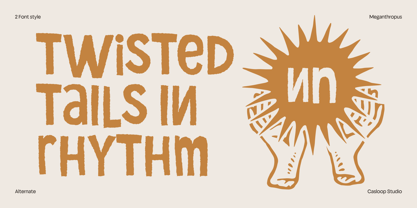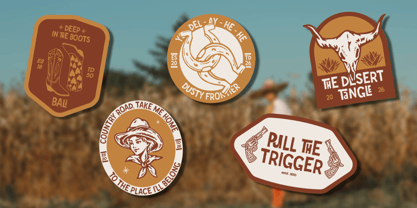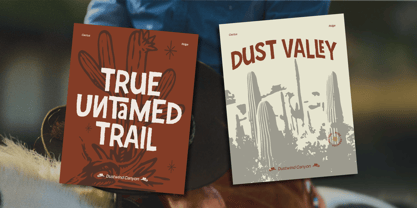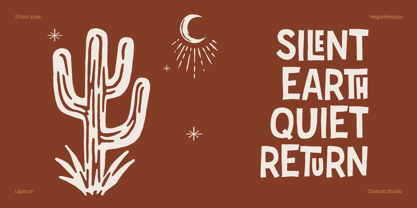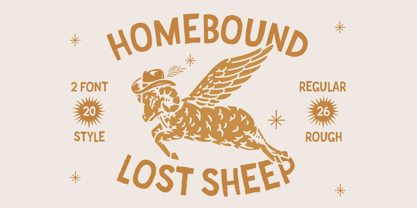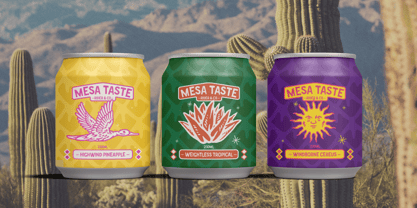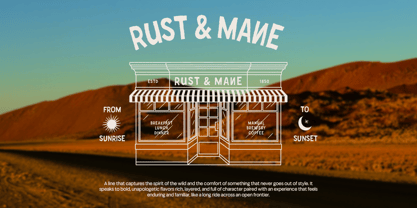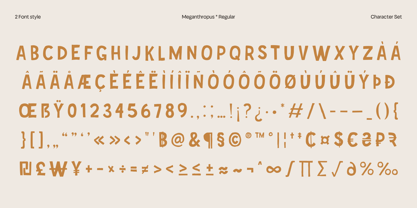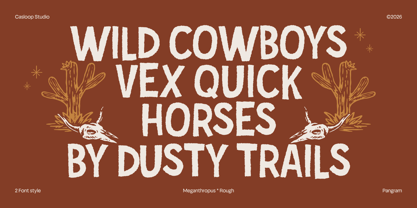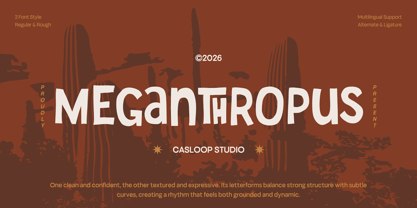
Meganthropus
by Casloop Studio
The Meganthropus Font Family was designed by Wantara Putra and published by Casloop Studio. Meganthropus contains 2 styles and family package options. More about this family
Meganthropus is a vintage rough display font inspired by classic cowboy signage and old western print culture, built to deliver strong visual impact with an authentic, rugged presence. Its defining characters E, T, L, P, N, and U stand out through wide, upright forms paired with thick slab serifs and firm, rigid terminals, creating a powerful silhouette that holds attention at large sizes. The structured weight and slightly raw texture give the typeface a sense of authority and timeless grit, making it ideal for badges, posters, headlines, and branding projects that embrace a bold, adventurous, and unmistakably western identity. Recommended pairing with Roboto Slab, Oswald, Bebas Neue, Rockwell, Clarendon, Franklin Gothic Multilingulal Support : Bosnian, Catalan, Czech, Danish, German, English, Spanish, Estonian, Finnish, French, Irish, Croatian, Hungarian, Icelandic, Italian, Lithuanian, Latvian, Dutch, Norwegian, Polish, Portuguese, Romanian, Slovak, Slovenian, Albanian, Swedish, Turkish.